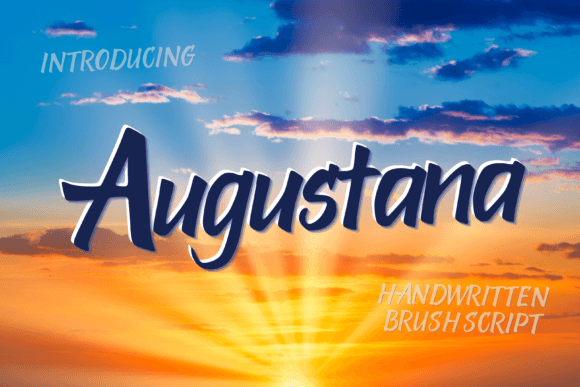
The Sweet Charm of Augustana Font: A Designer’s Delight
I’ll never forget the time I was working on a wedding invitation project, and my client asked for a font that was “sweet, delicate, and joyful.” I scoured the internet, tried out dozens of fonts, but nothing seemed quite right. That was until I stumbled upon Augustana Font. ✨ It was like a breath of fresh air – dainty, romantic, and perfectly suited for the project. In this article, I’ll share my experience with Augustana Font, its features, and how to make the most of it in your designs.
An Honest Review of Augustana Font
• ✨ Delicate and elegant handwritten style
• ✅ Perfect for romantic designs, such as wedding invitations, cards, and love letters
• 🎉 Excellent for adding a personal touch to your designs
• 💕 Beautifully crafted to evoke a sense of joy and whimsy
While Augustana Font is a stunning addition to any design, there are a few things to keep in mind: 🤔
• ⚠️ It may not be the best choice for body text or long paragraphs, as its delicate nature can be overwhelming in large quantities.
• ⚠️ Some characters, like the lowercase “x” and “z”, can be a bit tricky to read.
The Story Behind Augustana Font
Augustana Font was designed with love and care by a talented type designer who wanted to create a font that would evoke a sense of joy and whimsy. The font’s delicate, handwritten style is inspired by traditional calligraphy and lettering techniques. 💌
Font Name Augustana Font
Author The Tenacious Type Studio
Q: What is Augustana Font best used for?
A: Augustana Font is perfect for romantic designs, such as wedding invitations, cards, and love letters. It’s also great for adding a personal touch to your designs.
Q: Is Augustana Font available in different languages?
A: Augustana Font may not support all languages, but it does include a range of characters and glyphs to support various languages.